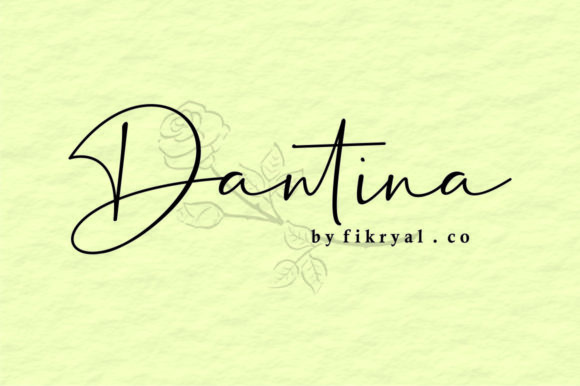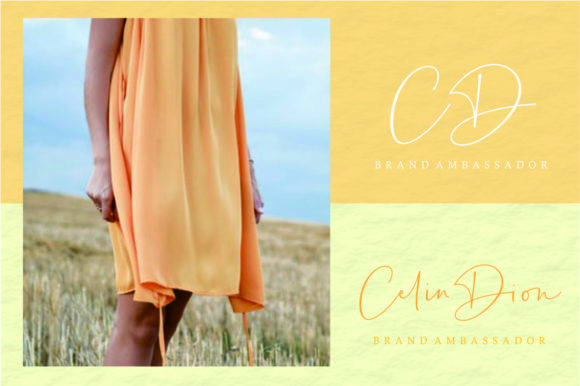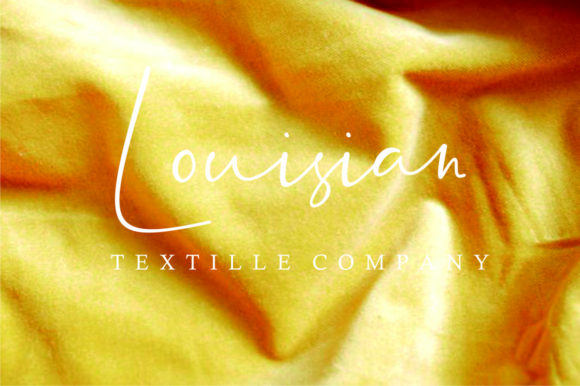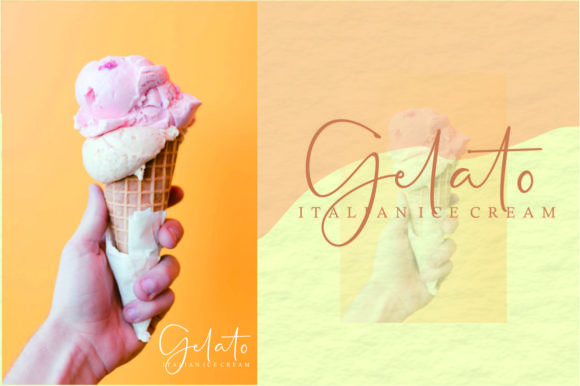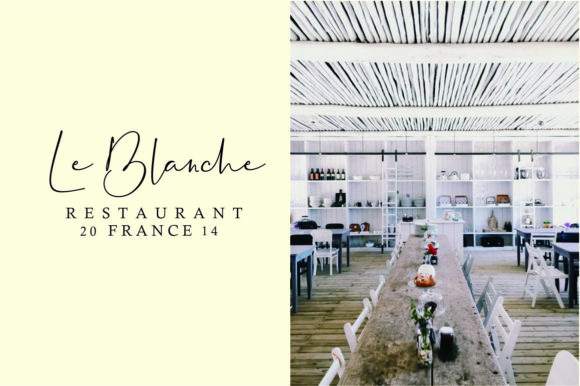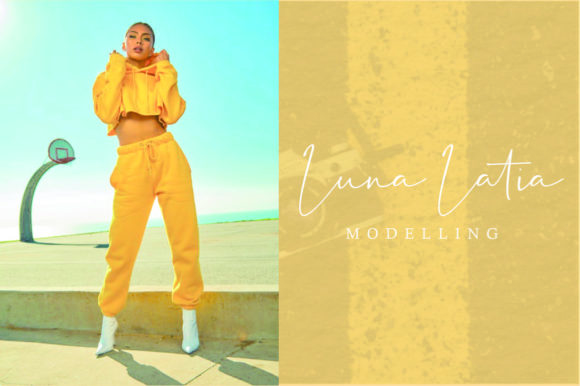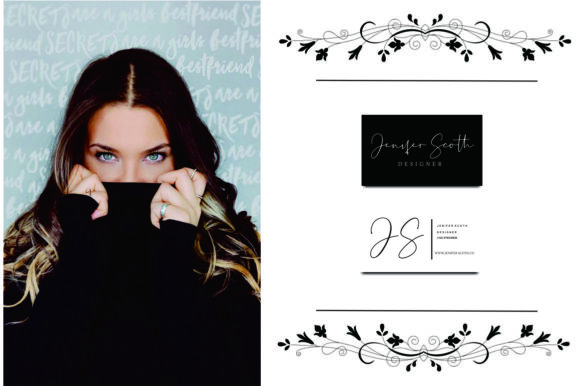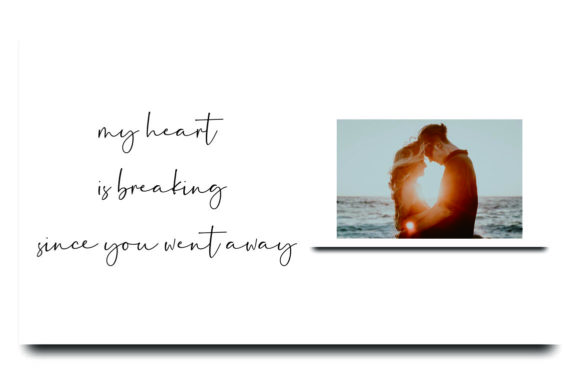
Dantina Font
About Dantina Font
The Dantina is an amazing handwritten font. It has an elegant style and is perfect for adding a natural feel to your designs.